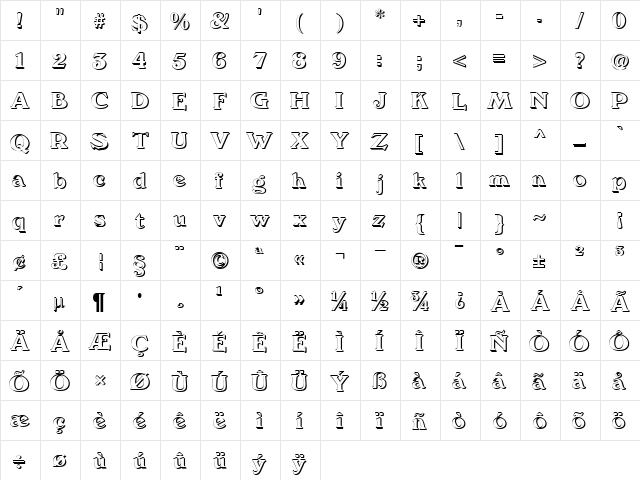
We5 DB Normal
Design Context for We5 DB Typeface
We5 DB offers clean, dependable letterforms without strong stylistic allegiance, making it a practical choice for designers who need flexibility.